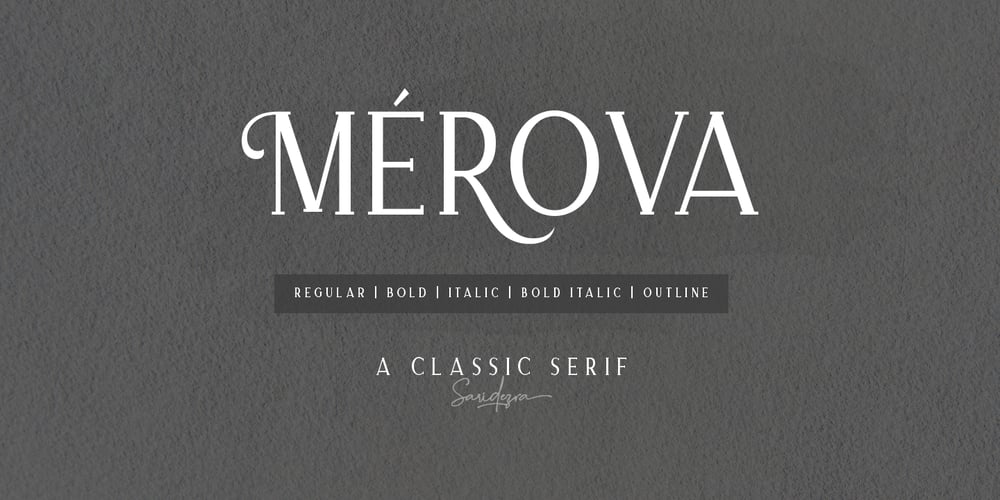
Merova Font Family was designed by Sarid Ezra and published by Sarid Ezra. Merova contains 5 styles and family package options. Introducing, brand new serif, Merova – a classic serif with alternates!Merova is a classic and elegant serif with many style. Merova contains a bunch of alternates for each characters that will make your presentation or logo even more stunning and stand out! Merova also support Multi Language. and already PUA Encoded!Features All Uppercase Number & Symbol Multi language Alternates for each characters PUA Encoded Don’t hesitate to send me an email at saridezra@gmail.com Happy Creating!